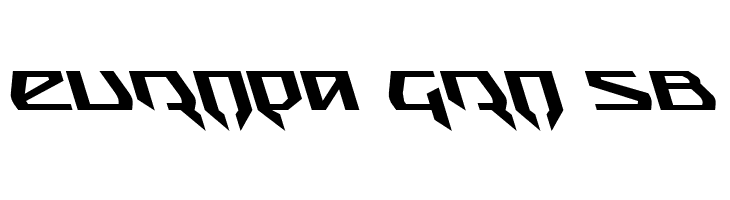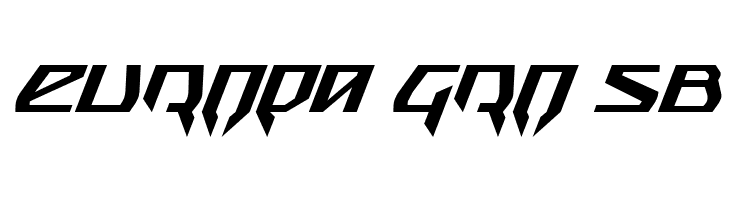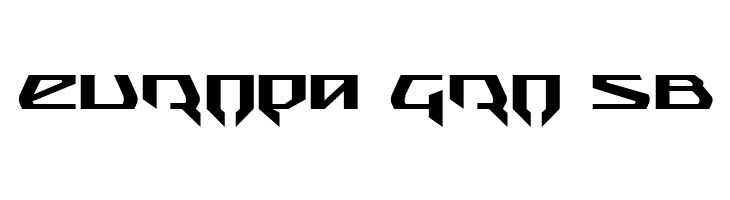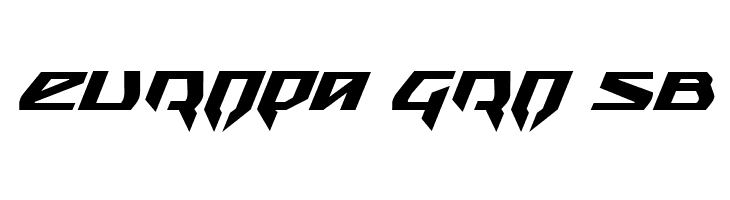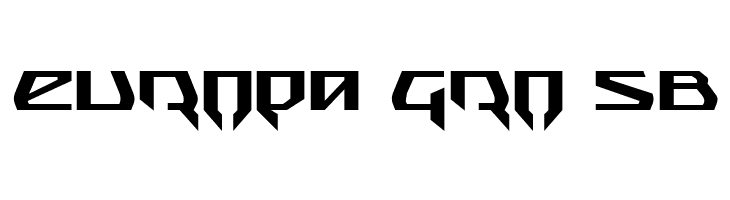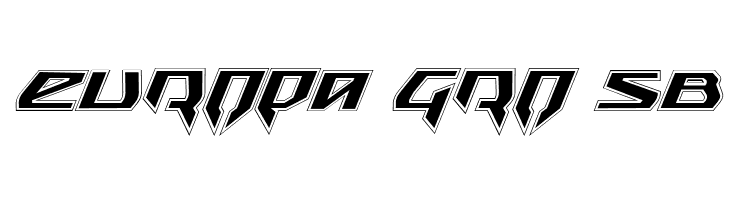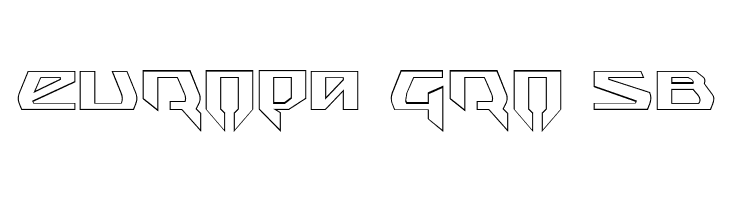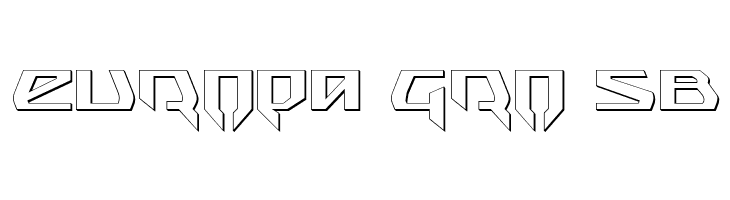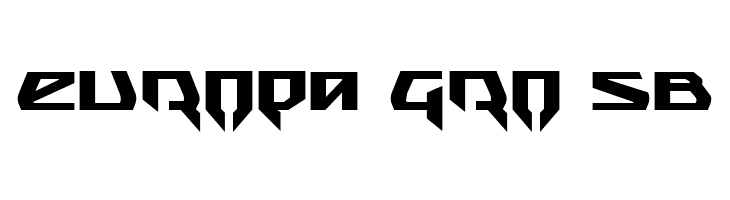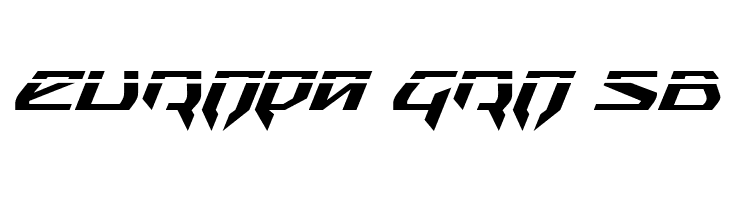
Mandalorian Font
A bold, decorative font with angular, futuristic design elements.
Galactic Basic Font
A bold, futuristic font with geometric, alien-like characters.
Snubfighter Academy Font
A bold, angular font with a futuristic and edgy design.
Snubfighter Font
A bold, futuristic font with sharp, angular lines and geometric shapes.
Sith Prophecy Font
A bold, angular font with a futuristic and mysterious design.
Snubfighter Phaser Font
A futuristic, angular font with sharp edges and geometric shapes.
Snubfighter Expanded Font
A bold, angular font with a futuristic and aggressive design.
Snubfighter Condensed Font
A bold, angular font with a futuristic and dynamic design.
Snubfighter 3D Italic Font
A bold, angular, and futuristic 3D italic font with sharp edges.
Snubfighter Bold Font
Snubfighter Expanded Italic Font
A bold, angular, and futuristic font with an italic and expanded style.
Snubfighter 3D Font
A bold, futuristic font with sharp angles and a 3D effect.
Snubfighter Italic Font
A bold, angular, and italicized font with a futuristic and dynamic style.
Snubfighter Academy Italic Font
A bold, angular, and italic font with a futuristic and aggressive style.
Snubfighter Bold Italic Font